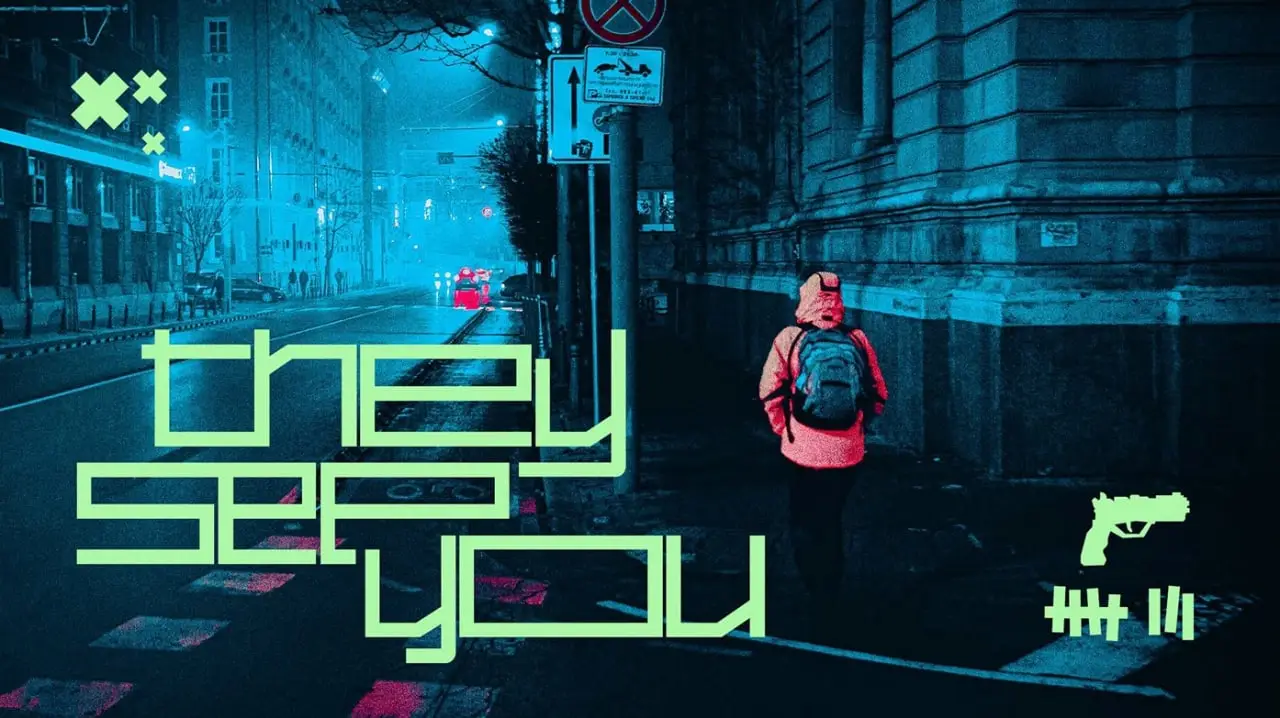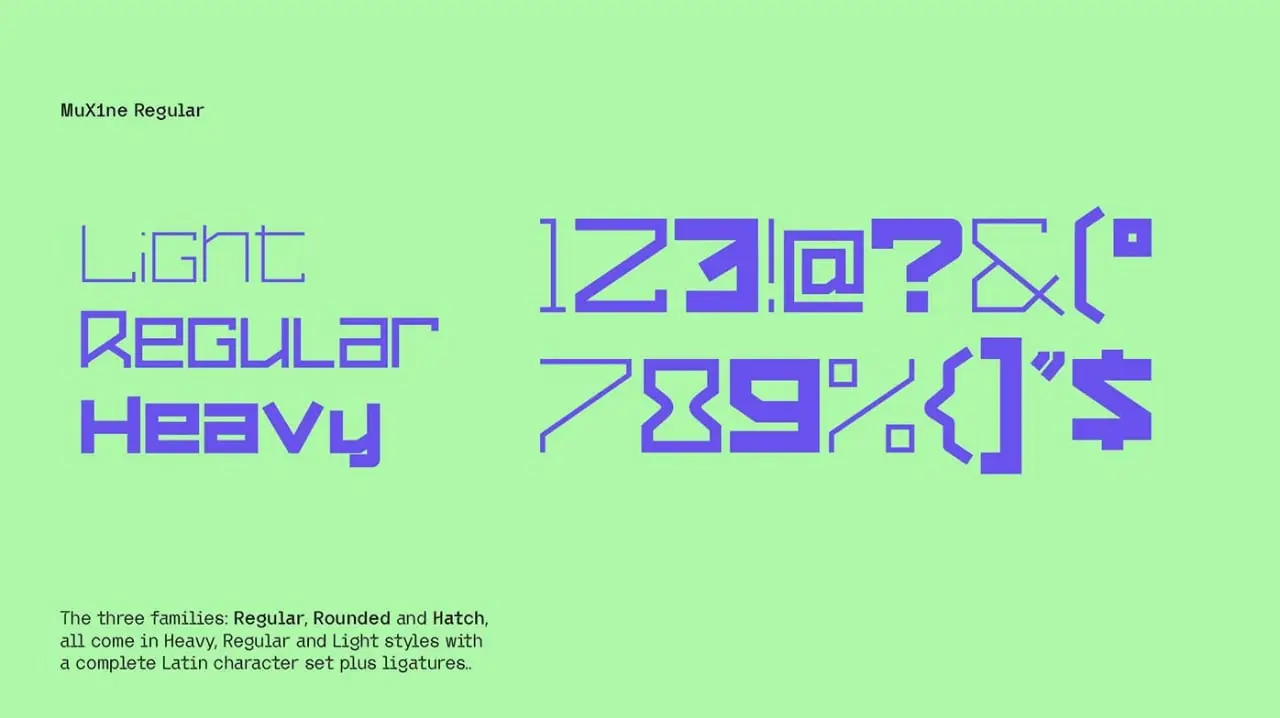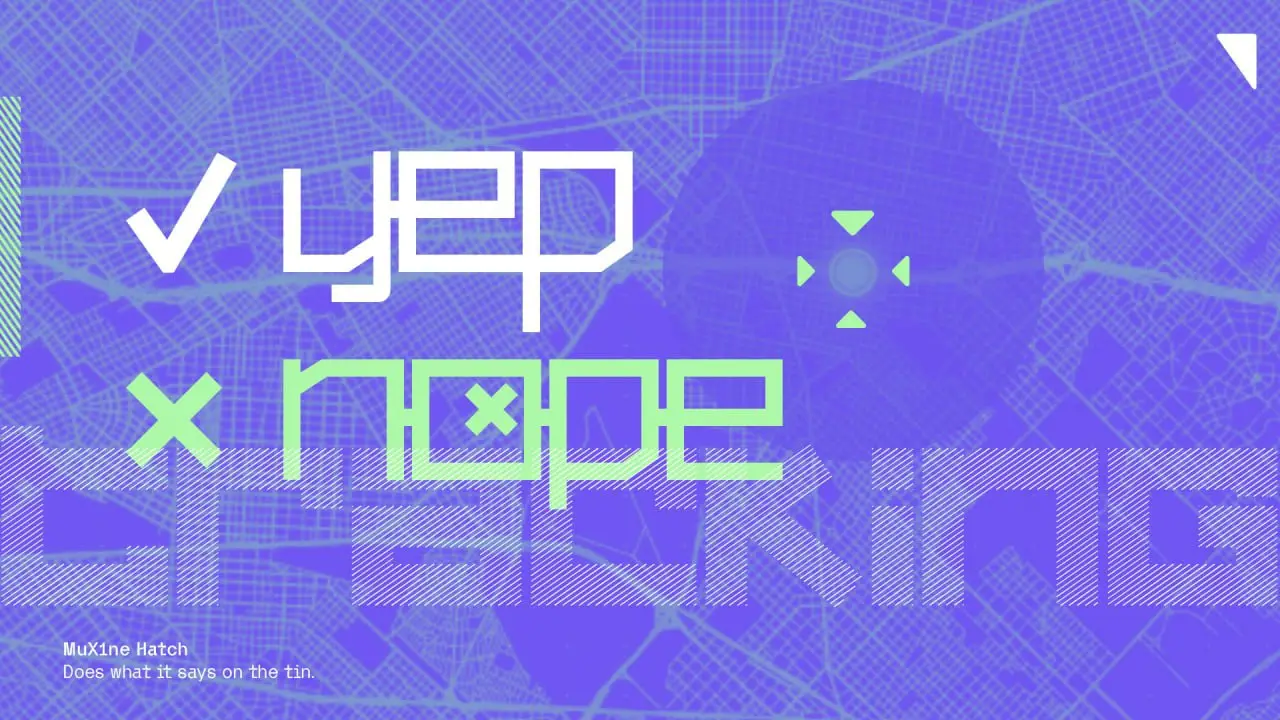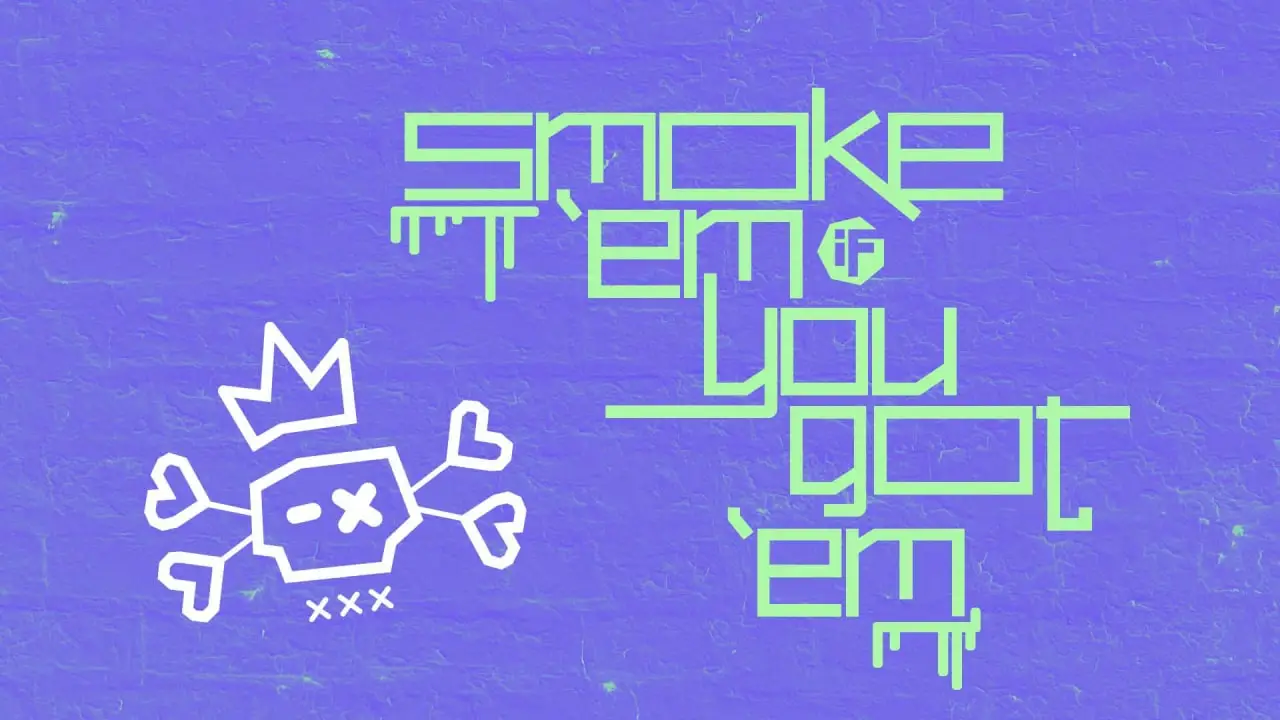
Mux1Ne Typeface
The Mux1Ne Typeface is a modern and versatile font that brings a unique flair to any design project. With its clean lines and contemporary style, this typeface is perfect for a variety of applications including branding, logos, web design, and print materials.
• Multiple weights for diverse design needs
• Stylish uppercase and lowercase letters
• Special characters and symbols included
• Easy to read at various sizes
• Ideal for both digital and print projects
• Use Mux1Ne for eye-catching headlines and body text
• Perfect for branding and marketing materials